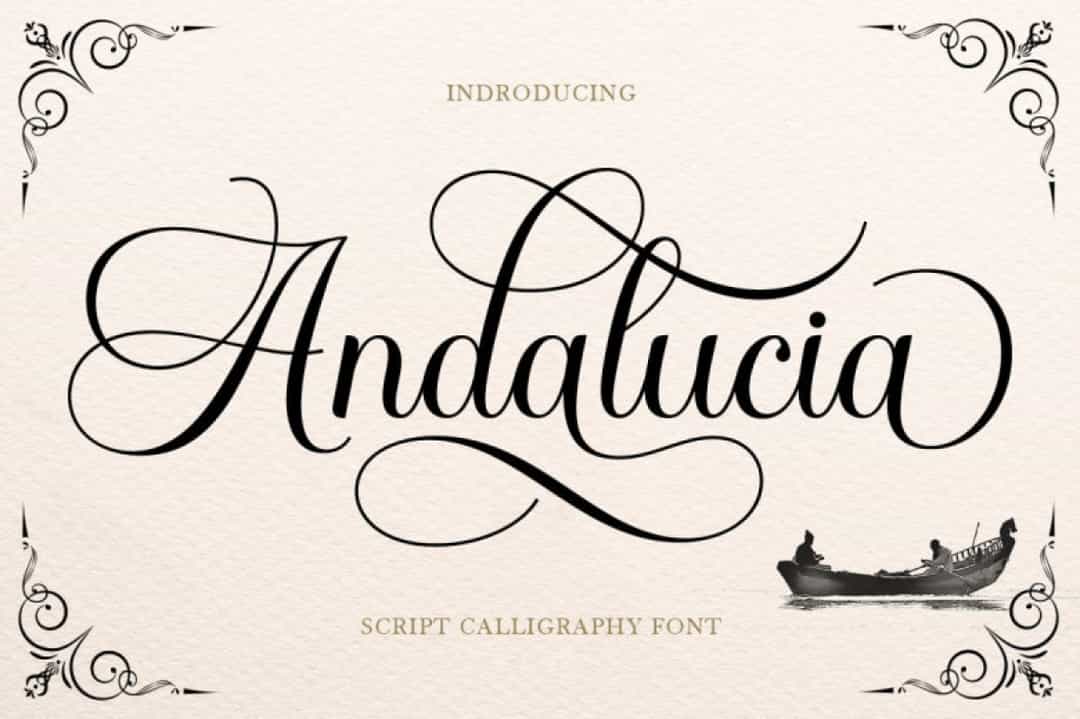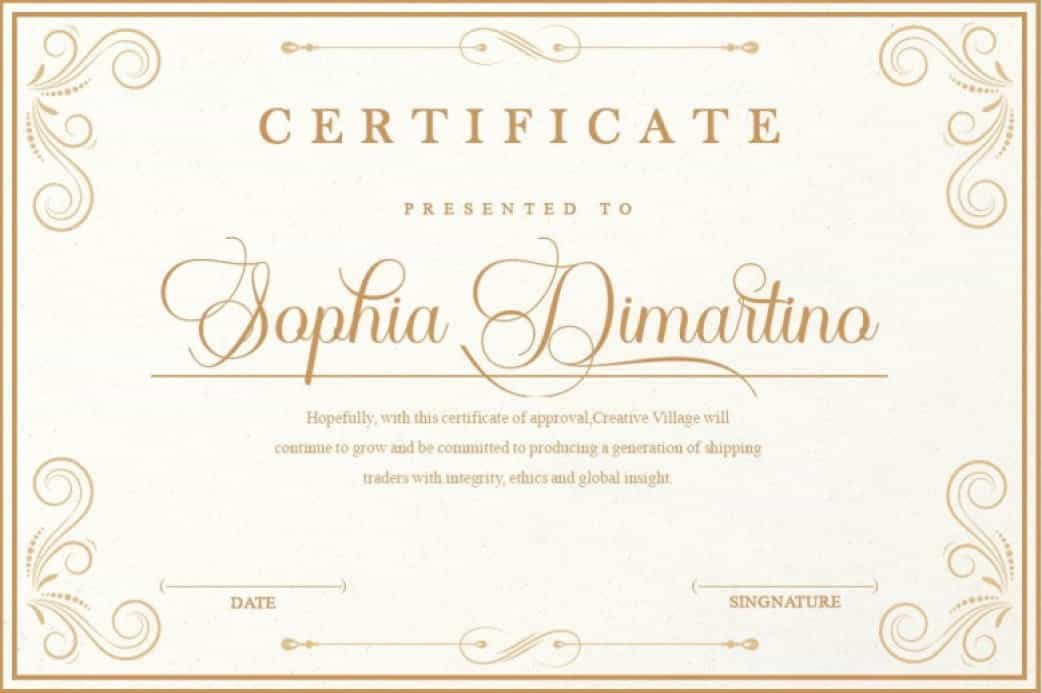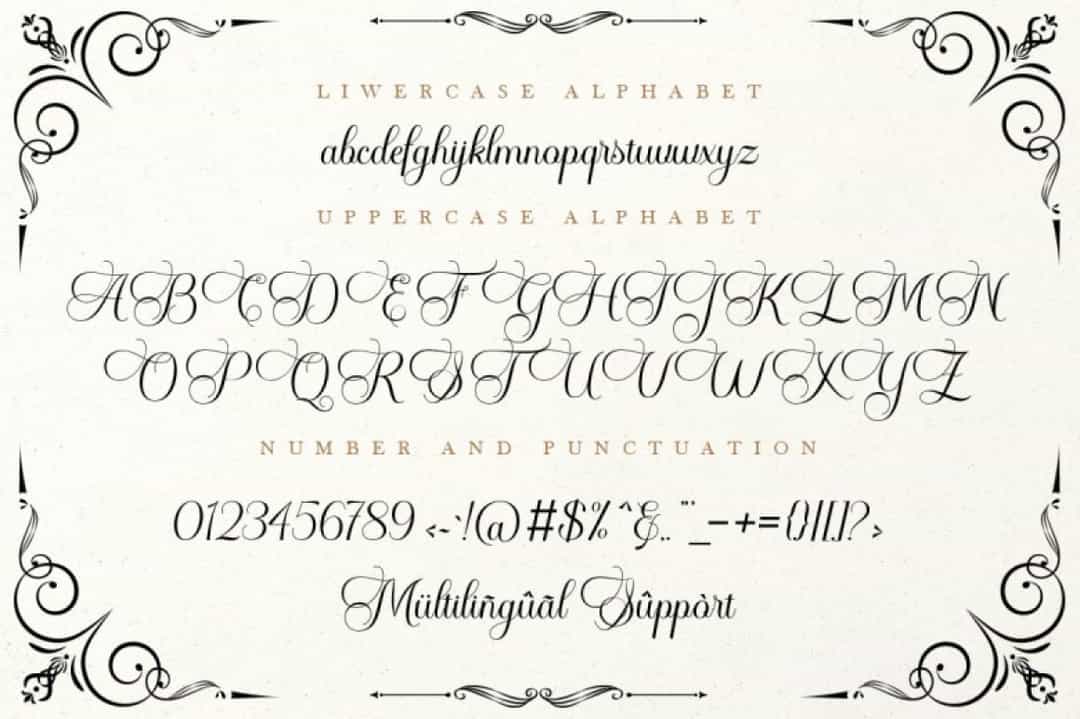
Andalucia can be best described as an elegant Calligraphic Script font adorned with stunning alternative characters. Copperplate calligraphy combined with hand lettering creates its unique and stylish appearance. Andalucia stands out for being delicate yet clean sensual feminine elegance as well as accessible readability – qualities which truly define its beauty.